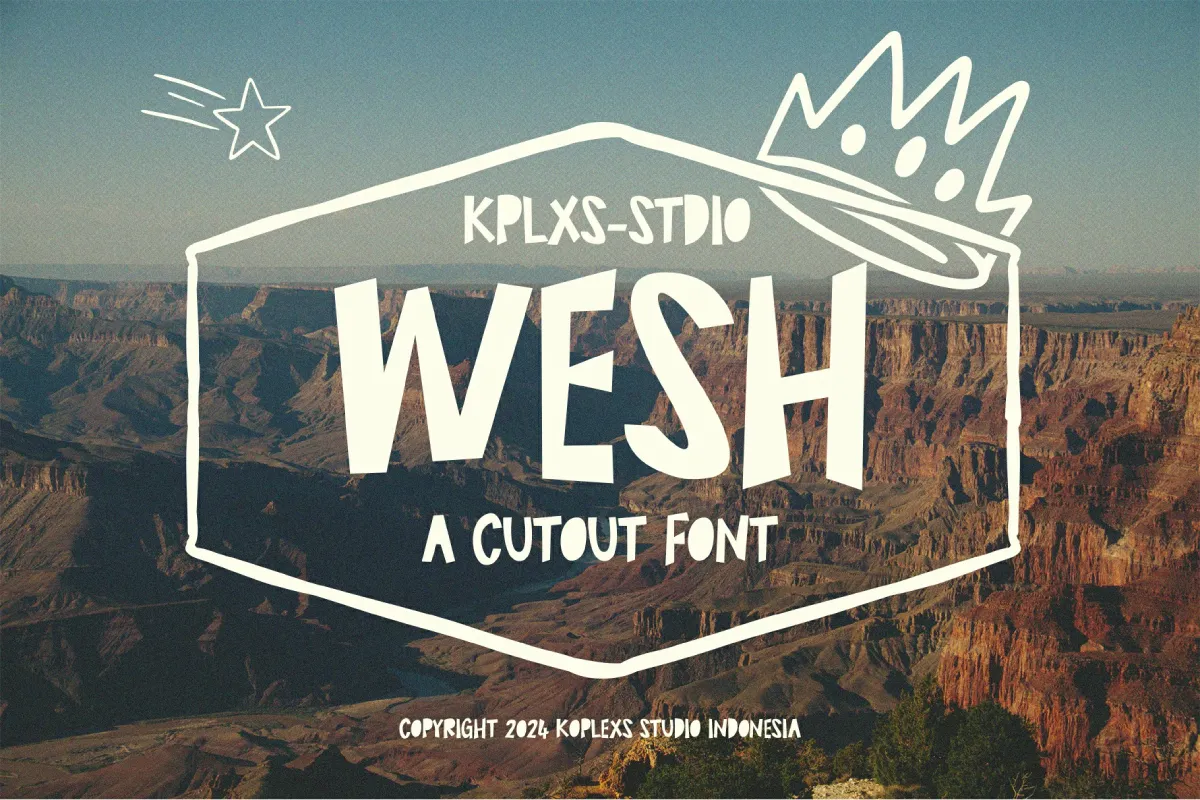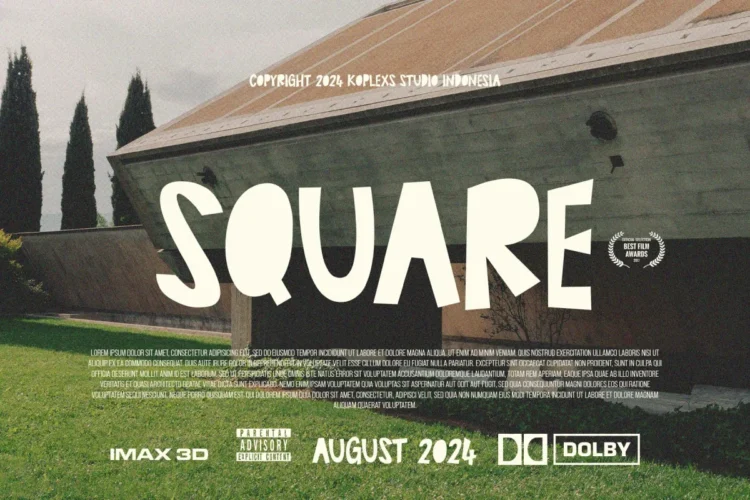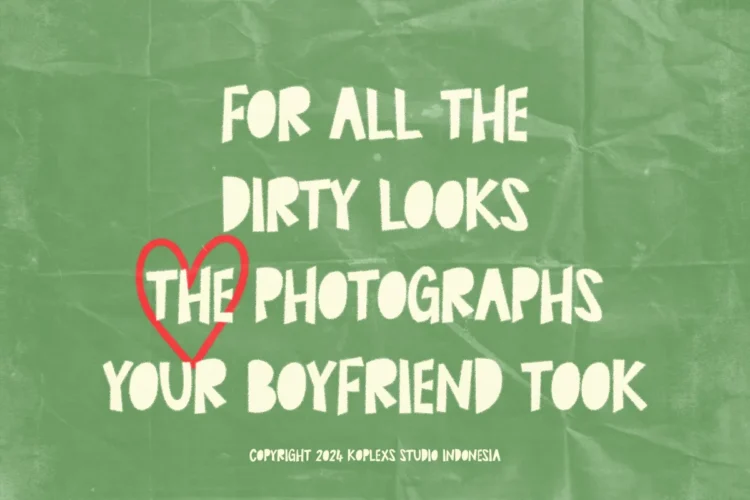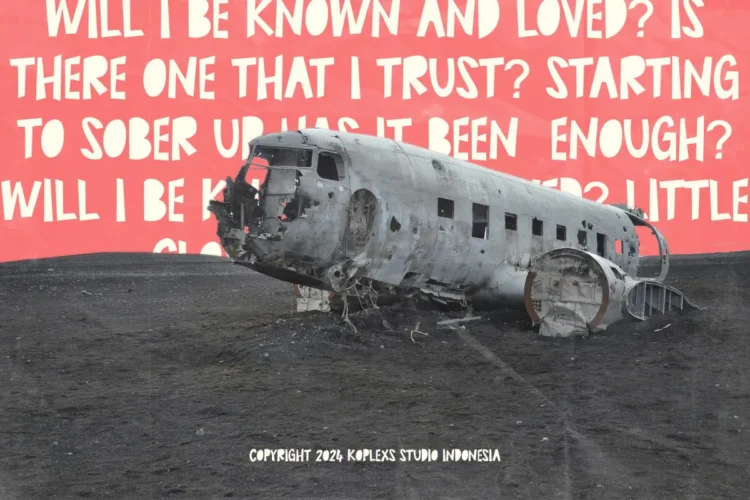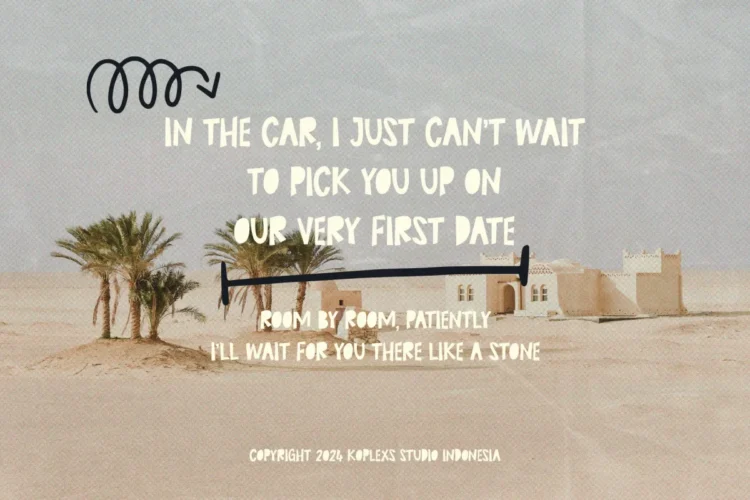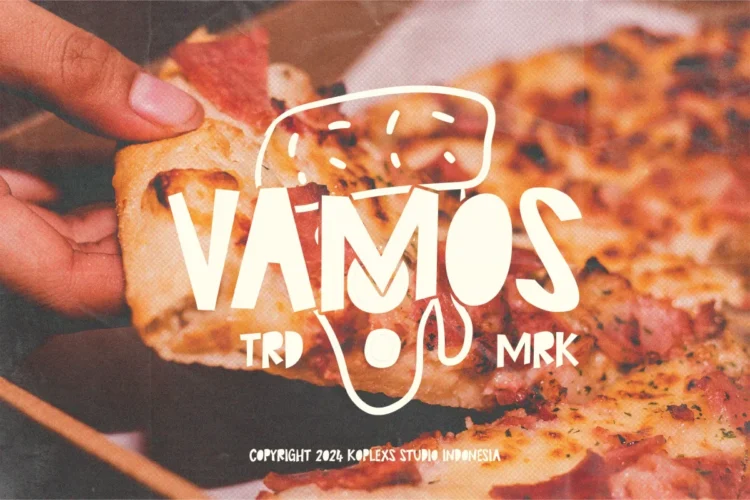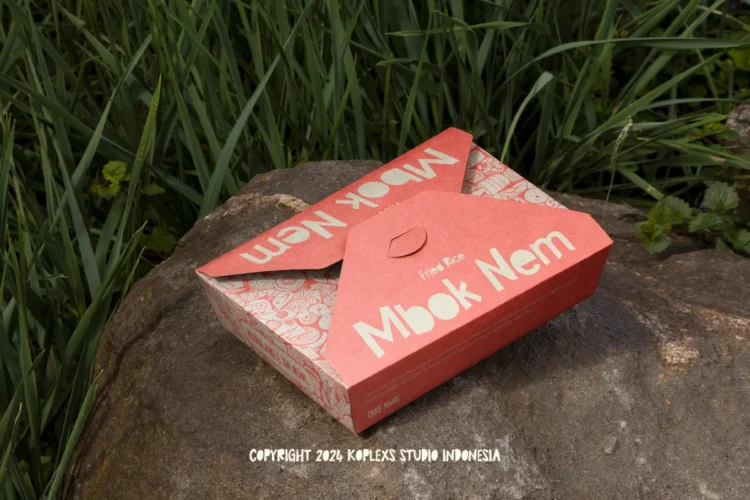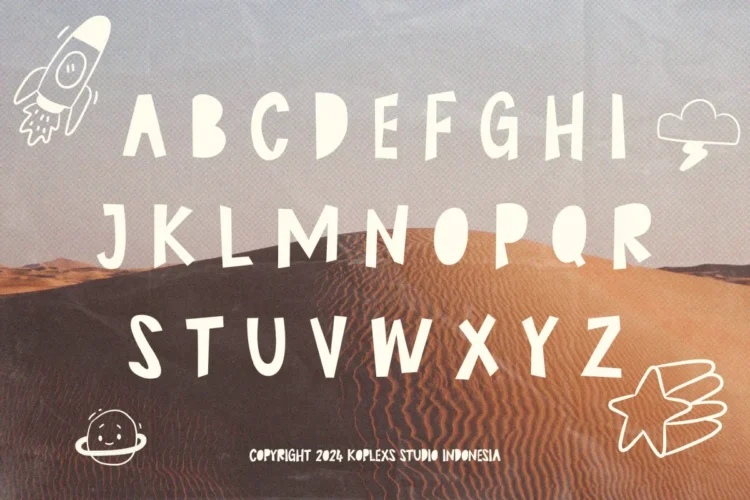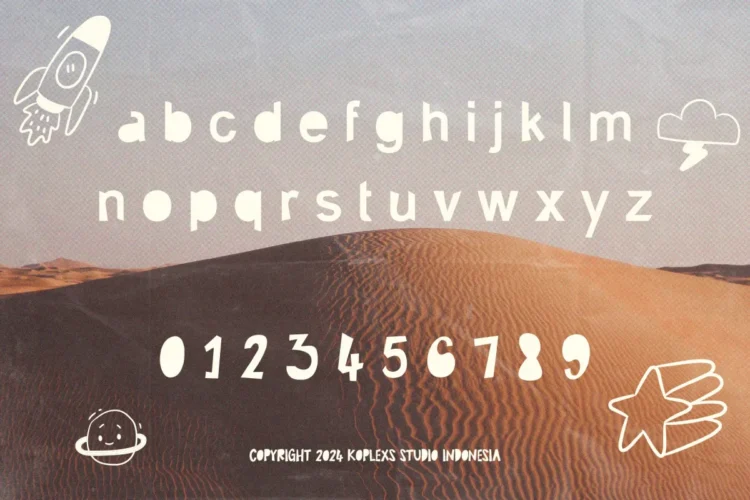
Wesh Font
Wesh Font – A Modern Display Font for Creative Branding, Posters, and Logos
Introducing Wesh Font, a modern display font created by Koplexs Studio Indonesia. This chunky font blends handcrafted character and clean font shapes, resulting in a cool font that feels natural and expressive. Designed with creativity in mind, Wesh Font brings a cutout-style charm that stands out in any design composition.
Perfectly suited for designers and brands looking for a goods font that communicates personality and flair, Wesh is an elegant font that can easily adapt to both minimal and artistic themes.
Wesh Font is versatile and works beautifully for :
• Branding Projects – a striking branding font for labels, businesses, and visual identities
• Logos & Icons – a distinctive logo font that adds personality and originality
• Posters & Covers – expressive poster font and cover font for artistic layouts
• YouTube & Social Media – creative YouTube cover font for channels and thumbnails
• Headlines & Titles – stylish heading font or headline font for magazines or websites
• Packaging Design – trendy goods font that enhances product aesthetics
Font Features:
• Playful handmade cutout style
• Chunky, modern sans serif structure
• Stylish and creative design
• Excellent readability in any layout
• Unique and versatile character for visual appeal
🎨 Why Choose Wesh Font:
Wesh Font delivers modern creativity with a handcrafted twist. Its cutout and uneven letterforms evoke energy, warmth, and originality, making it the perfect modern font for designers who want to create visually engaging works with personality. Whether for digital branding, merchandise, or editorial layouts, this font adapts effortlessly while maintaining a distinctive look.
Wesh Font is a modern sans serif display font with a playful cutout style. Perfect for branding, posters, YouTube covers, packaging, and creative designs. This chunky and cool font combines elegance and personality, making it ideal for headlines, logos, and artistic visual projects that need a unique and stylish touch.